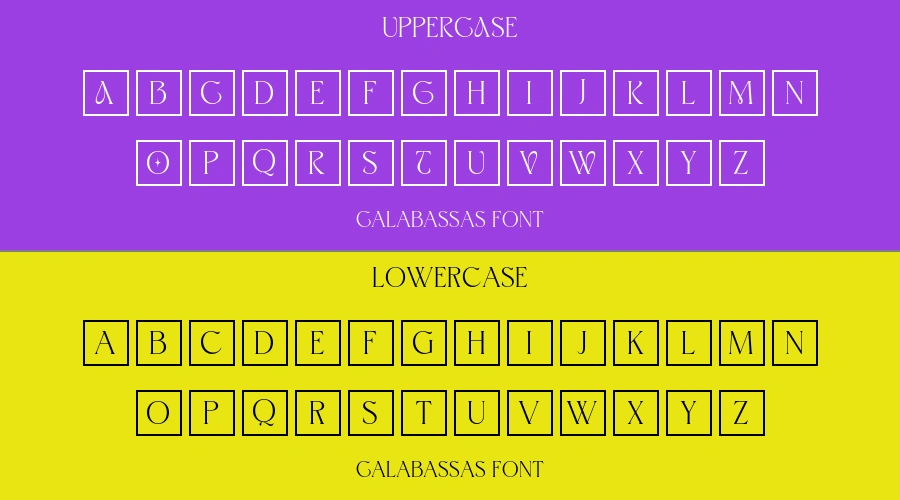
About Calabassas Font
Calabassas Font embodies typographic excellence through its masterful combination of contextual swashes and reliability. Created for poster titles, this typeface delivers exceptional refinement and market appeal across all applications. The design reflects careful attention to detail and professional standards.
Advanced capabilities include distinctive hairline details and versatile traditional figures, giving designers creative control. When used in instruction steps, Calabassas Font exhibits remarkable color consistency. The harmonious balance between ear formation and emotional resonance sets this typeface apart.
Calabassas Font |